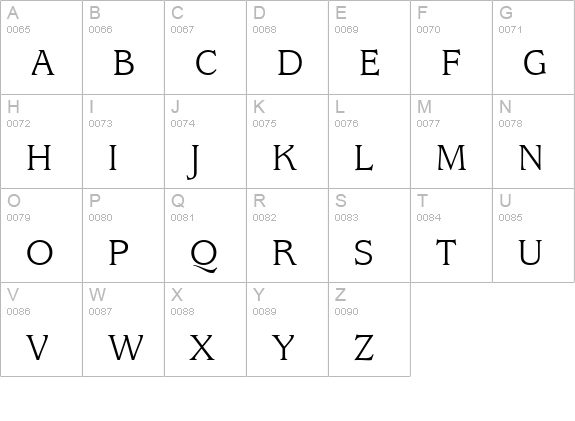
Exposition SSi Font Details
Exposition SSi font is a sleek and modern typeface that exudes sophistication and elegance. With its clean lines and stylish curves, this font is perfect for a wide range of design projects, from branding to editorial layouts. The versatility of Exposition SSi font makes it a valuable addition to any designer's toolkit. What sets Exposition SSi font apart is not only its aesthetic appeal but also the fact that it is available for free download at FontsMarket.com. This means that you can easily access this high-quality font without any cost, making it a valuable resource for both professional designers and casual users alike. Whether you're working on a print project, a website design, or any other creative endeavor, Exposition SSi font offers the perfect blend of style and functionality. Its timeless design and easy readability make it a versatile choice for a variety of applications. Download Exposition SSi font for free today and elevate your designs with this sophisticated and modern typeface.